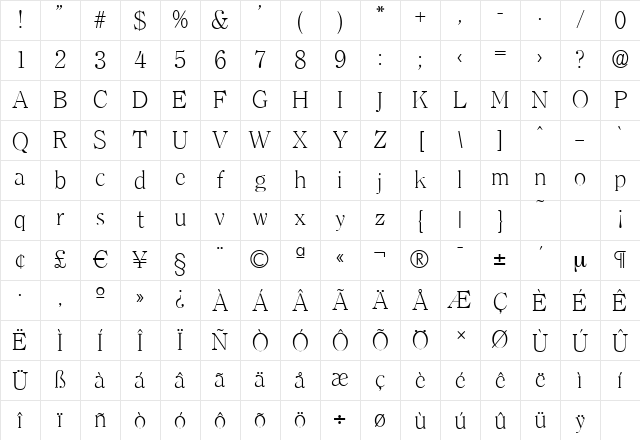
ClearfaceSerial-Xlight Regular
ClearfaceSerial-Xlight Family
Design Context for ClearfaceSerial-Xlight
ClearfaceSerial-Xlight is a composed and adaptable typeface that performs quietly and consistently across a wide range of design contexts. Its slender proportions lend an understated elegance to any composition.